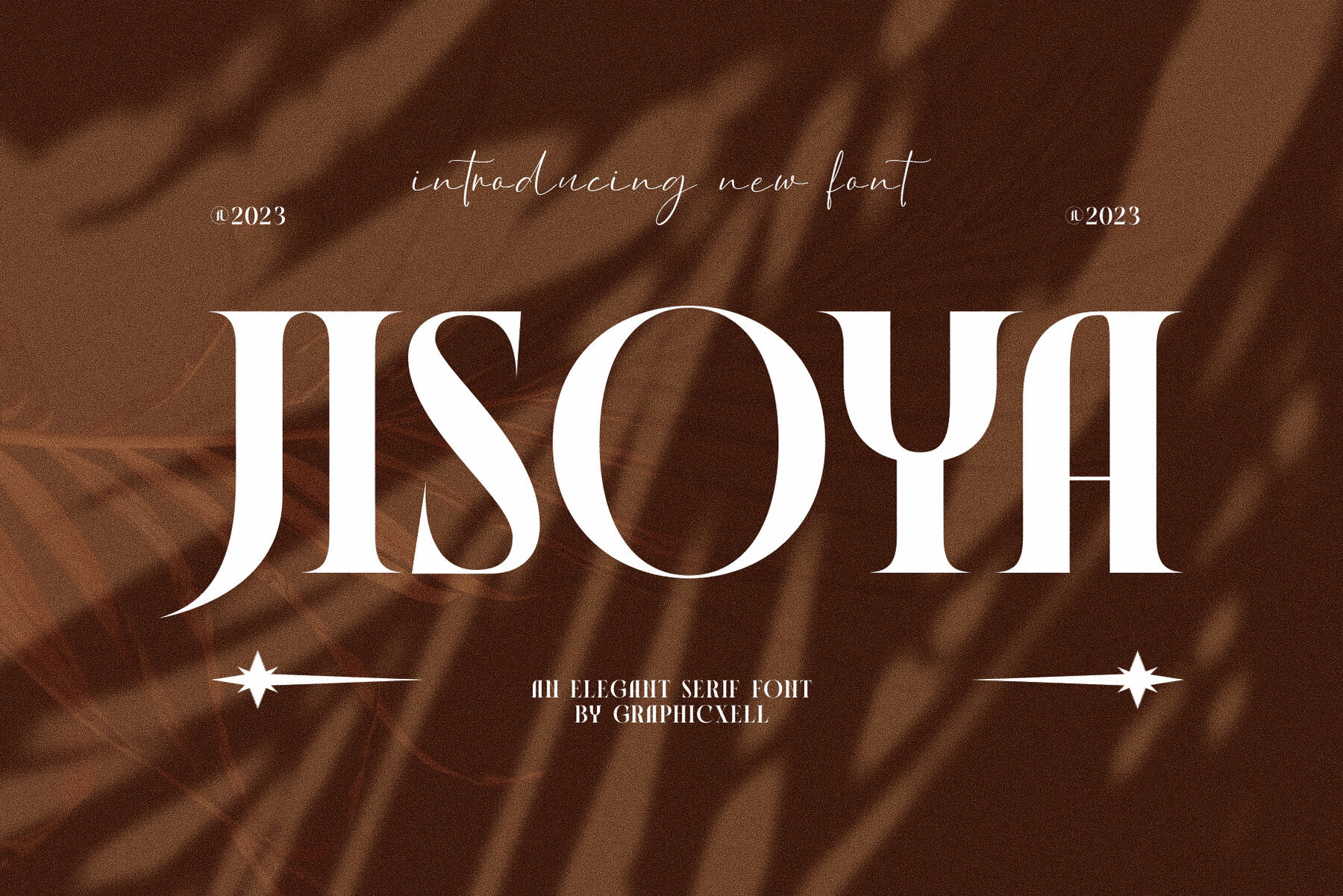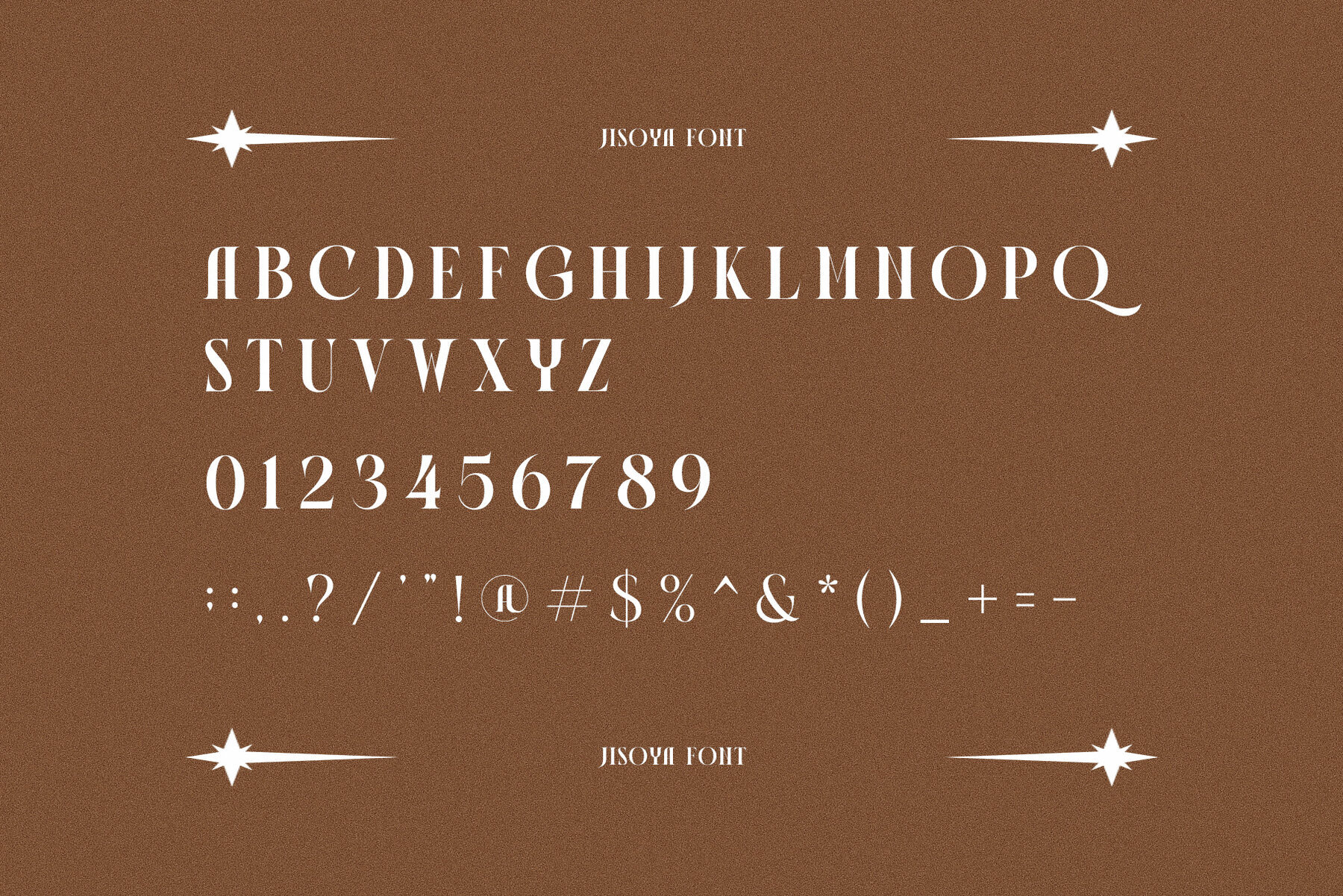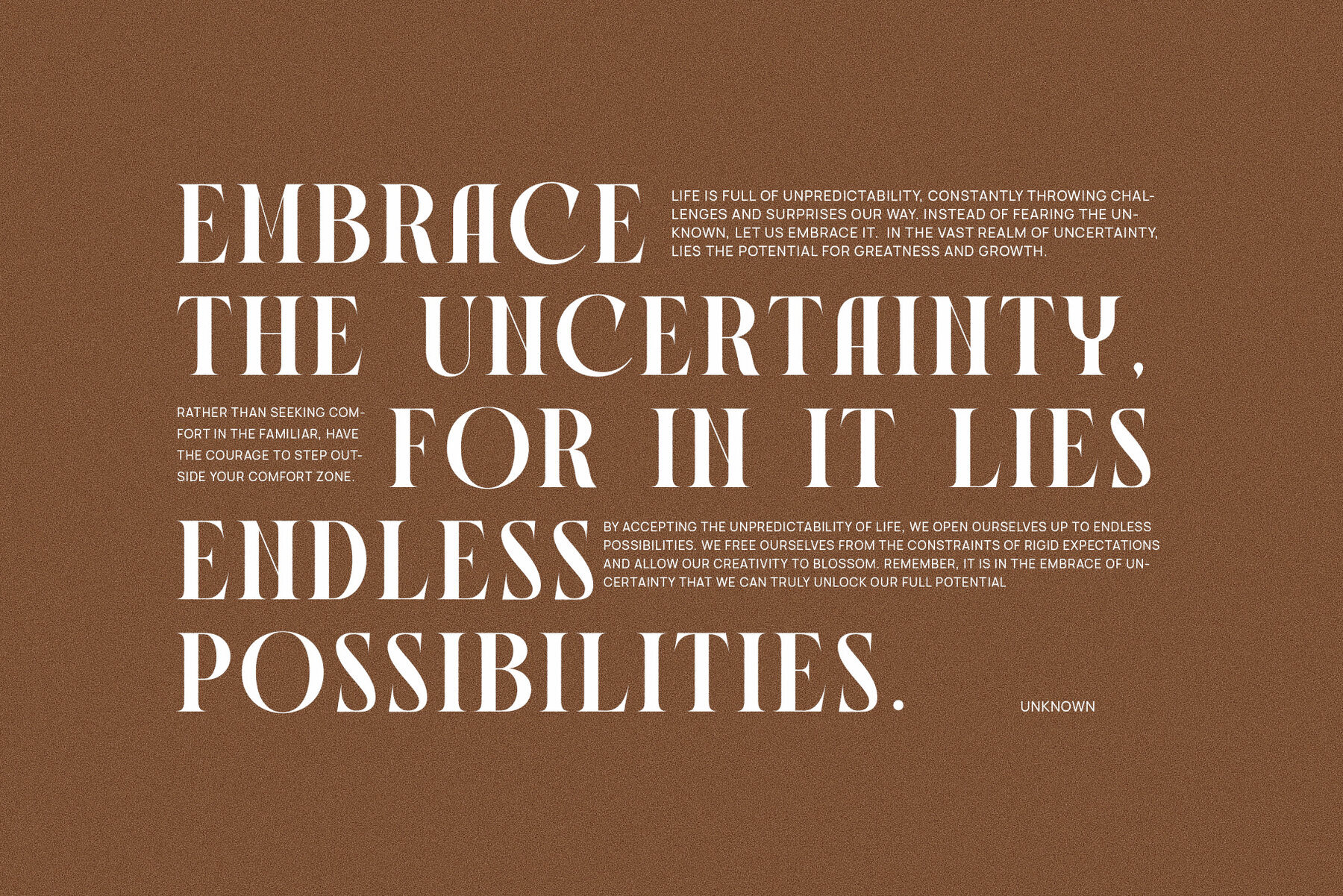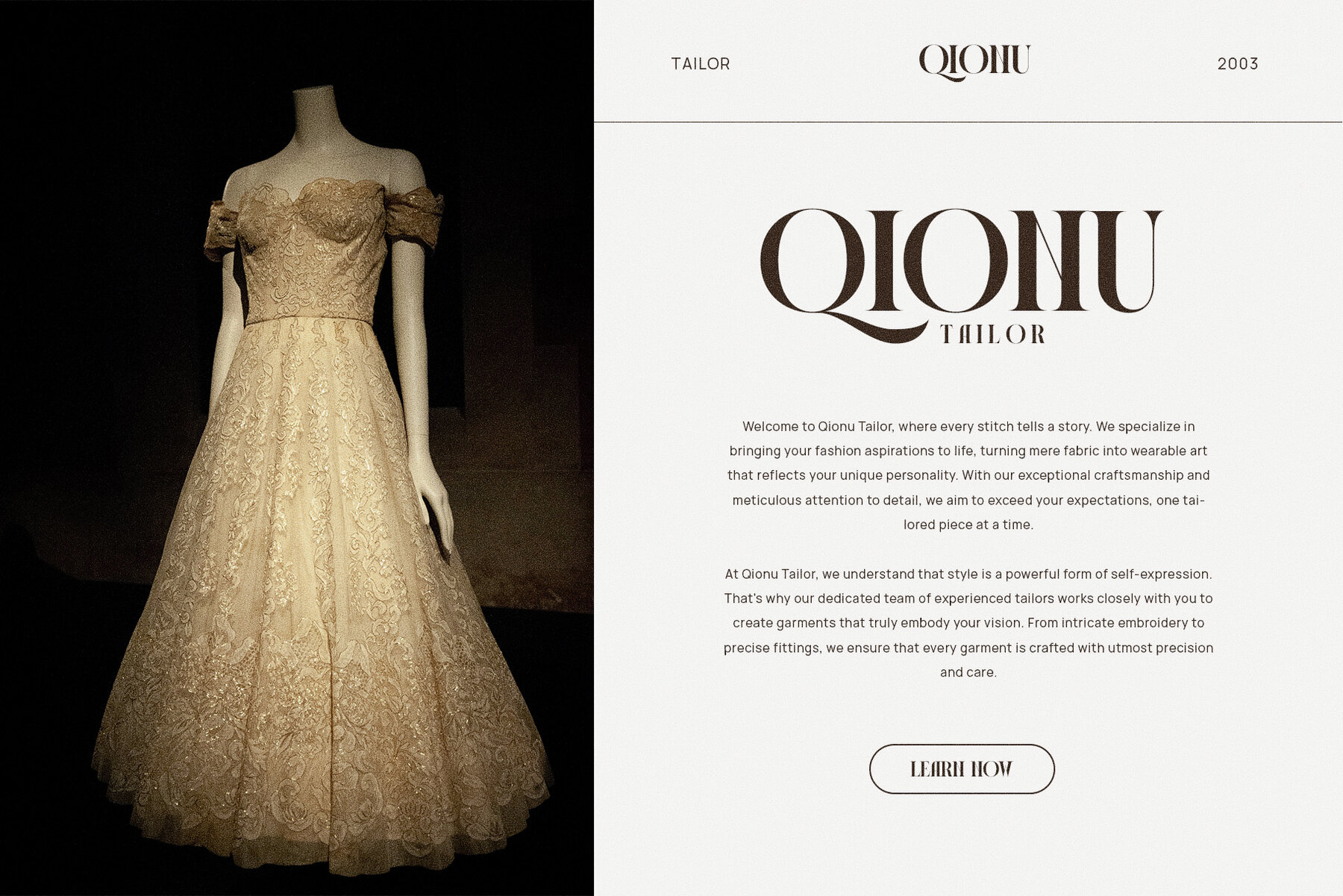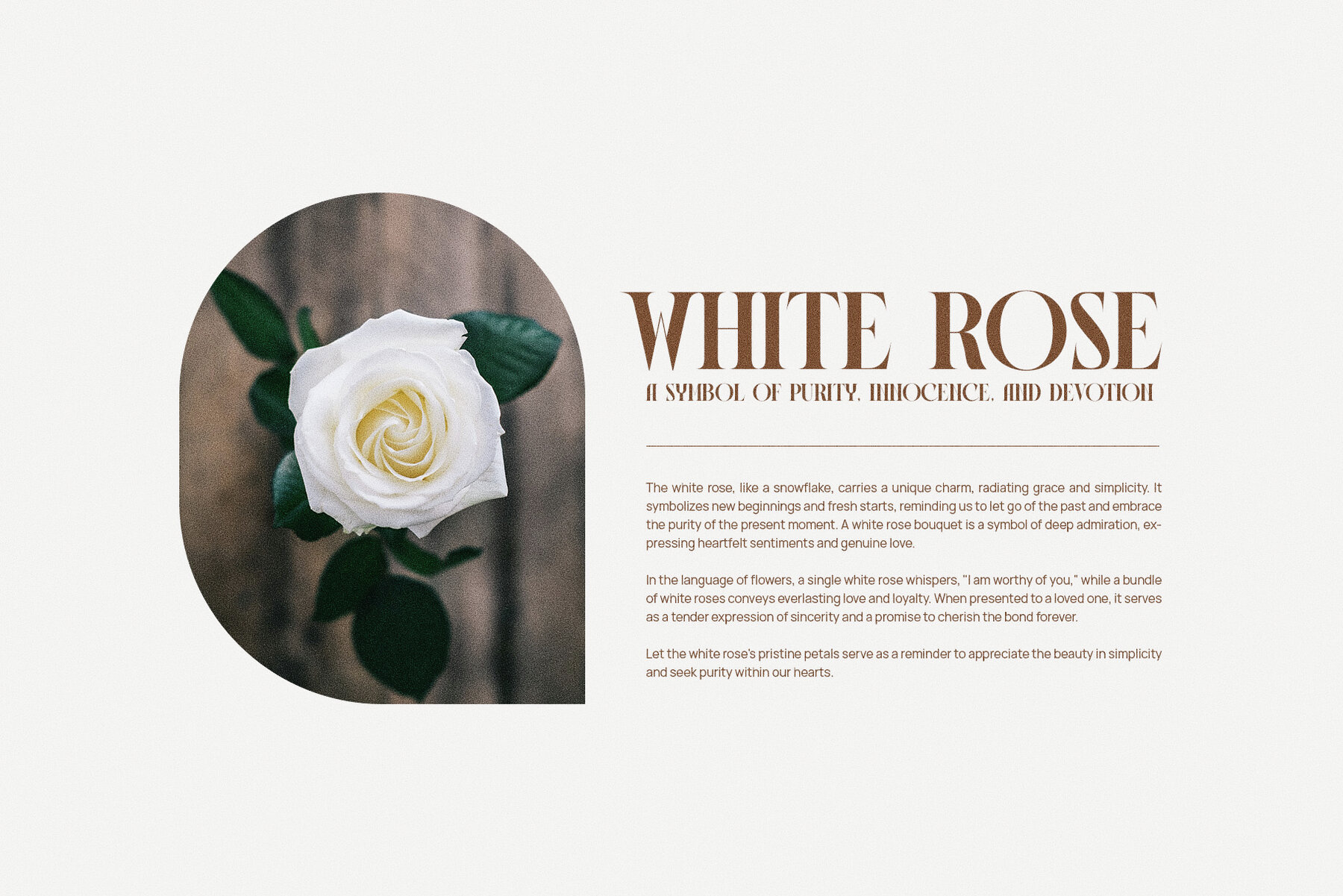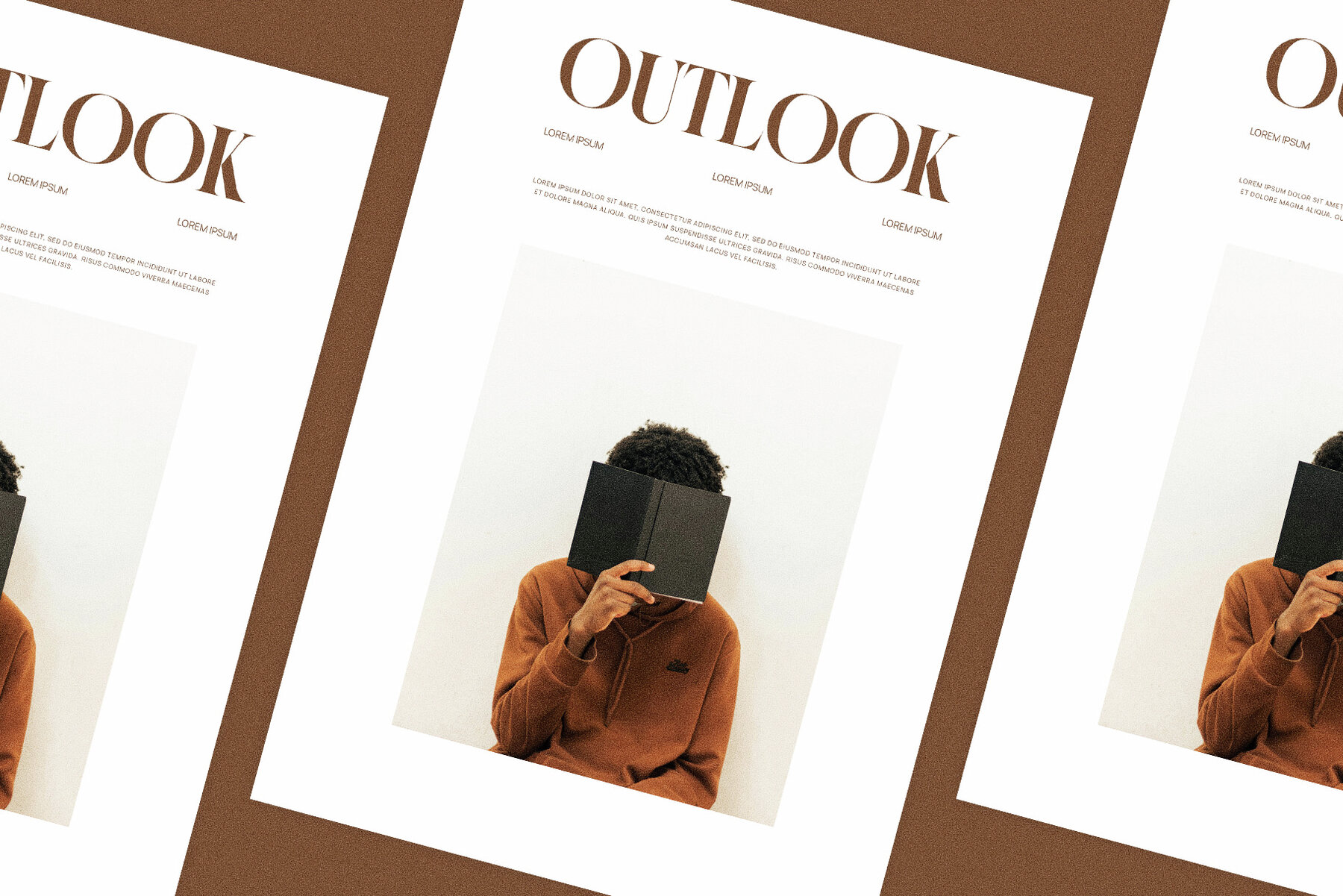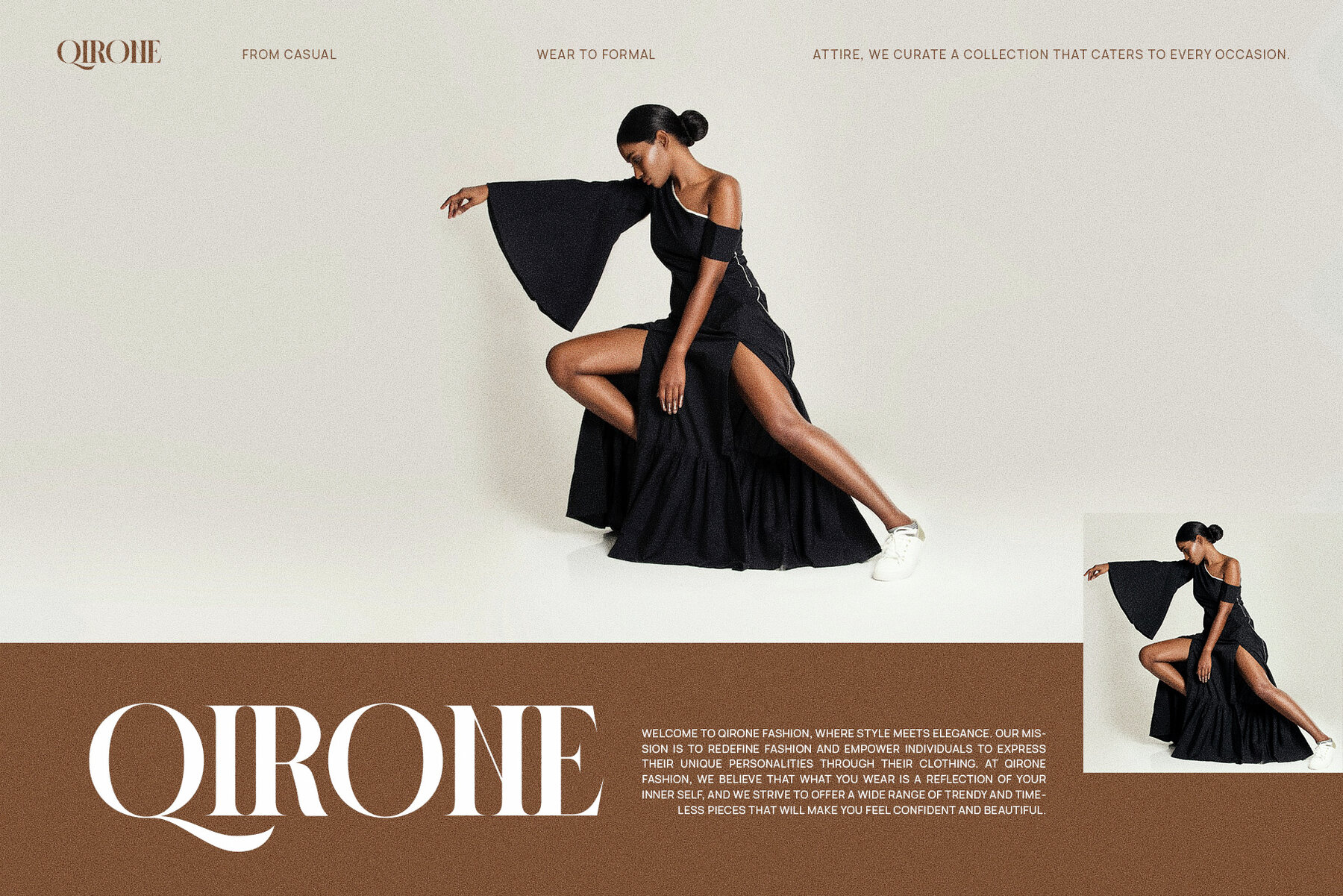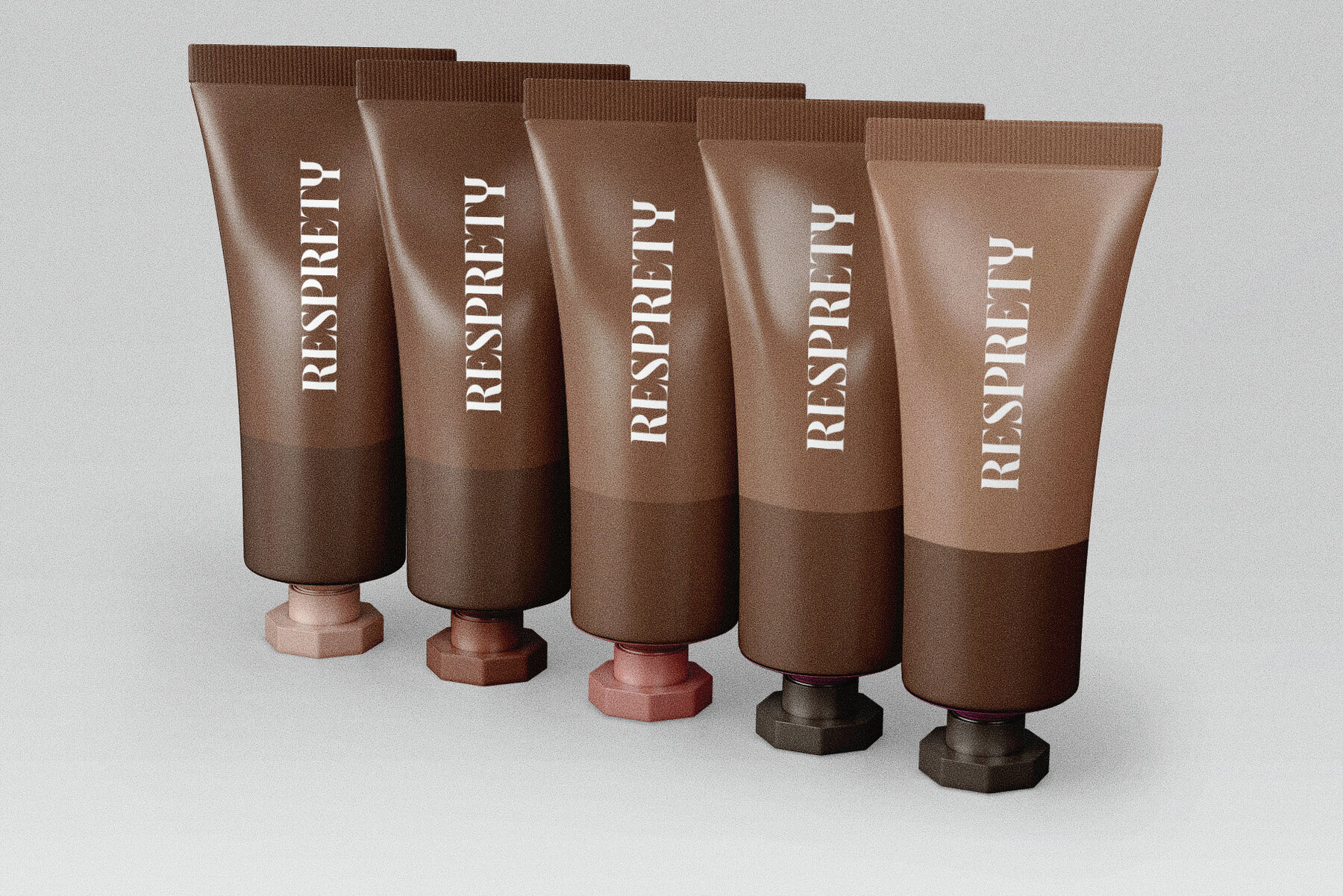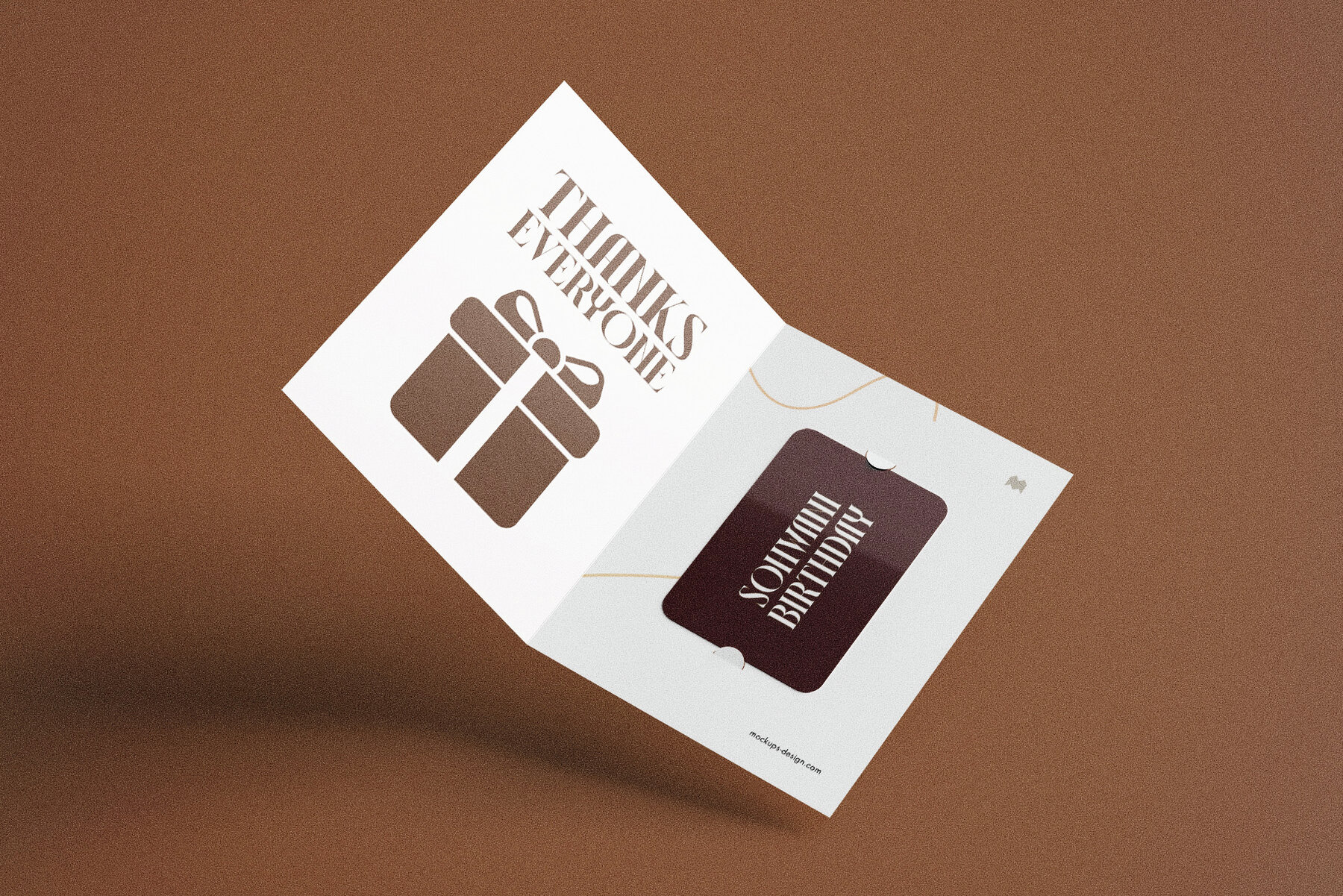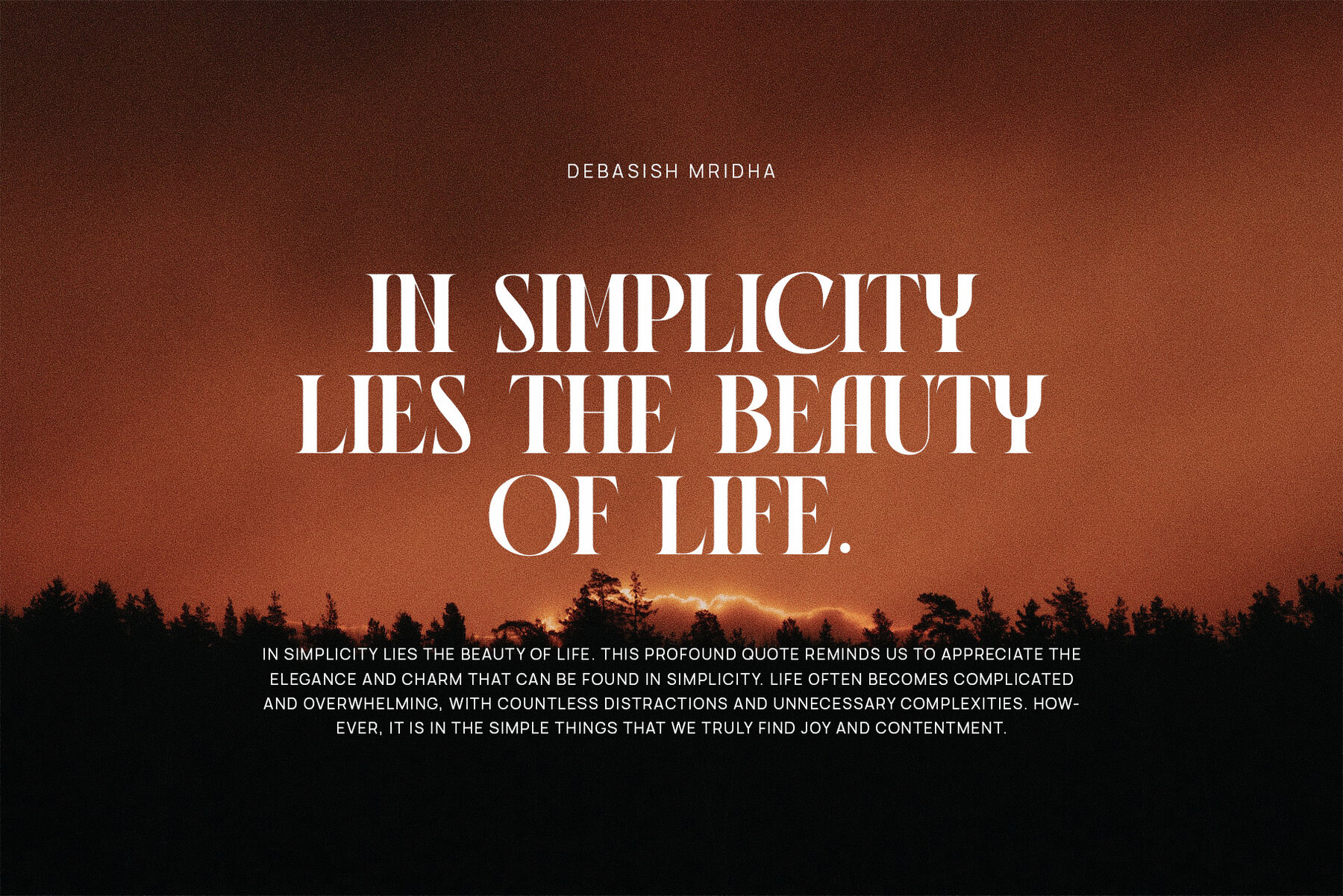
Jisoya Font
Jisoya Regular
Jisoya is a unique and elegant serif font ideal for branding and logo designs. Blending a classy yet modern style, this typeface is perfect for various projects, including logos, wedding designs, social media posts, advertisements, and packaging. Its high readability ensures that Jisoya will meet your needs with excellence. Jisoya works seamlessly on both PC and Mac. It is recommended to use Adobe Illustrator or Adobe Photoshop for optimal results.Jisoya: Elegant Serif Font for Modern Branding